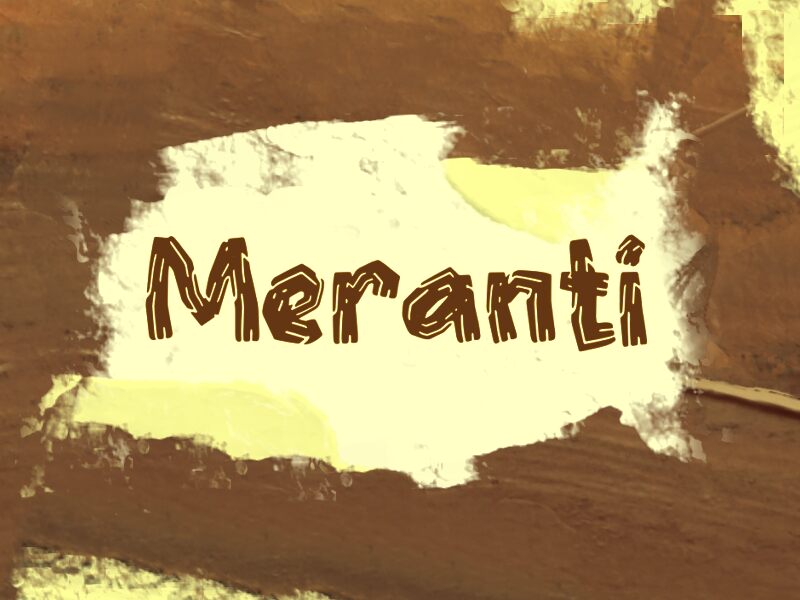
Meranti by Wep is a free hand-drawn display font with a rough, carved-marker feel. The letters look built from repeated uneven strokes, giving the font a jittery woodcut energy where chunky outlines, angled corners, and scribbly inner paths do most of the talking.
It fits poster headlines, zine covers, indie music graphics, packaging, and title cards where the lettering can act like image and text at once. As a free font, Meranti also works for short branding lines or drop-in words on social posts, because those layered strokes keep even a simple word feeling restless and handmade.